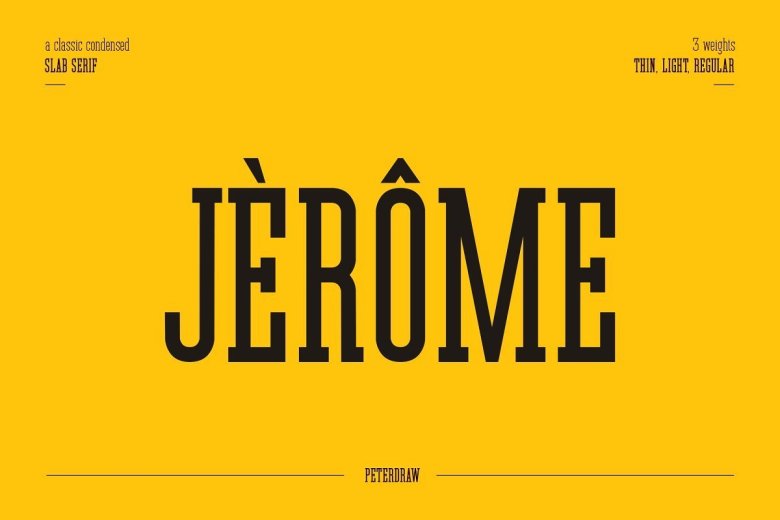
Jerome Typeface
Jerome Condensed Slab Serif Typeface inspired by compact, strong, and solid font. It comes with 3 weights: Thin, Light, and Regular. Jerome features strong and solid lines, gorgeous glyphs, and stunning styles.